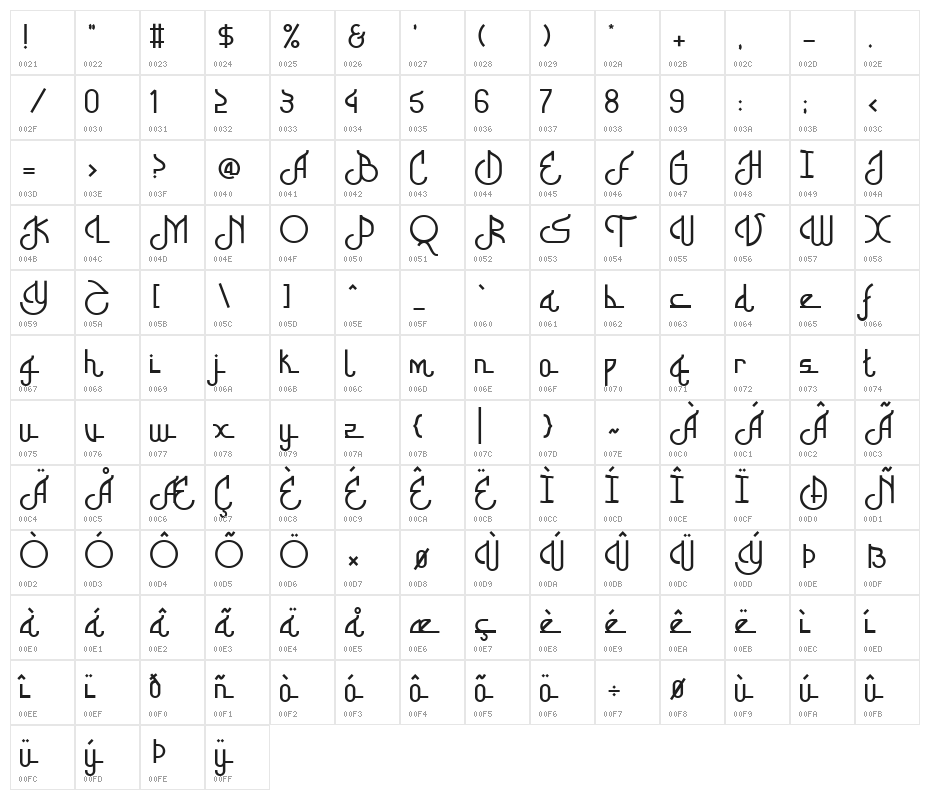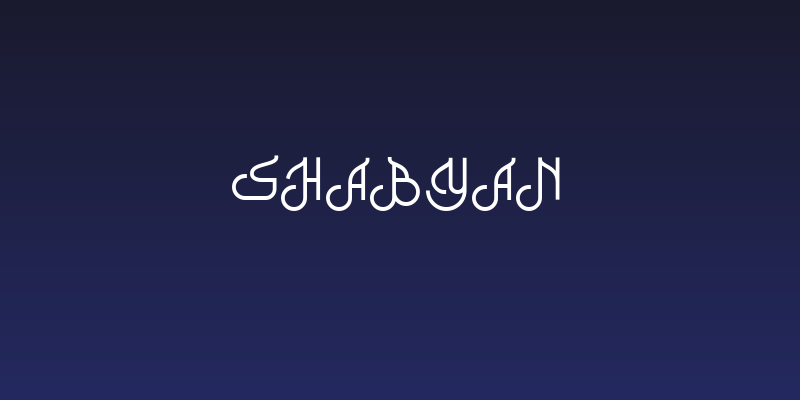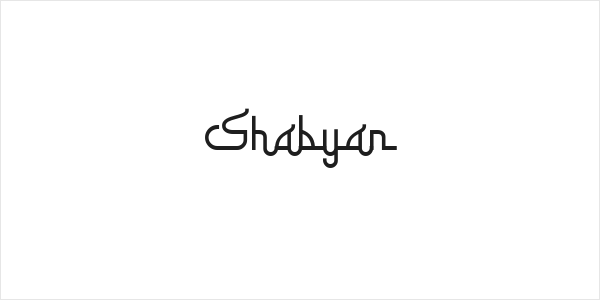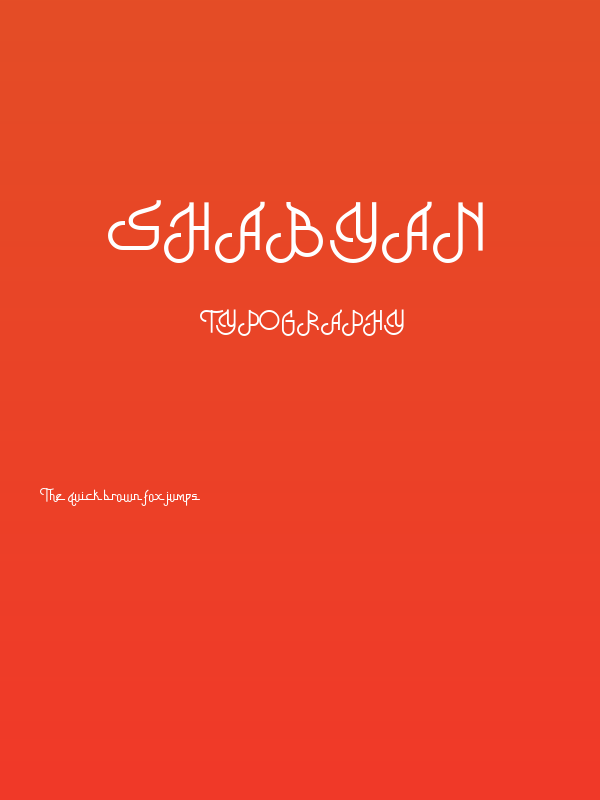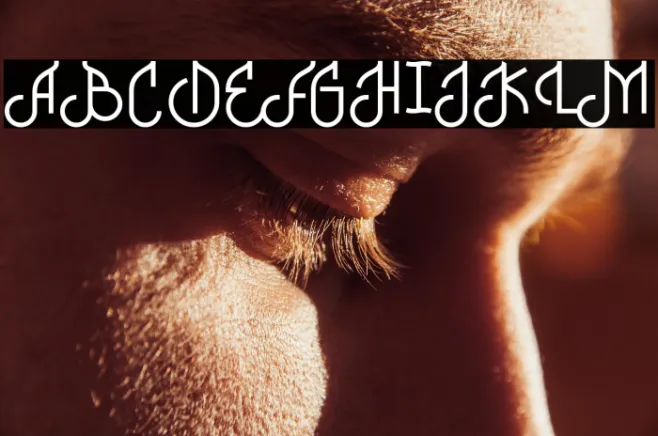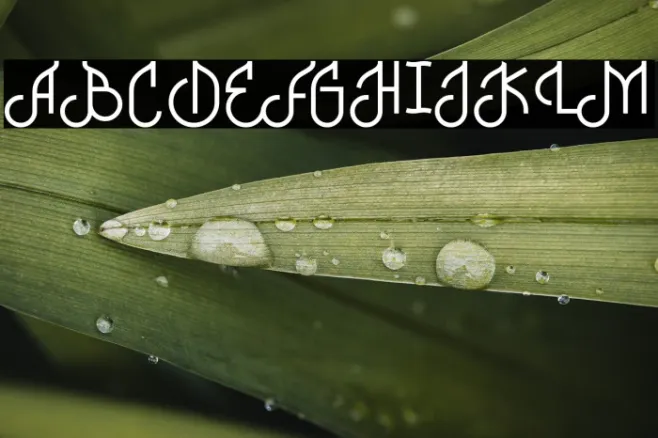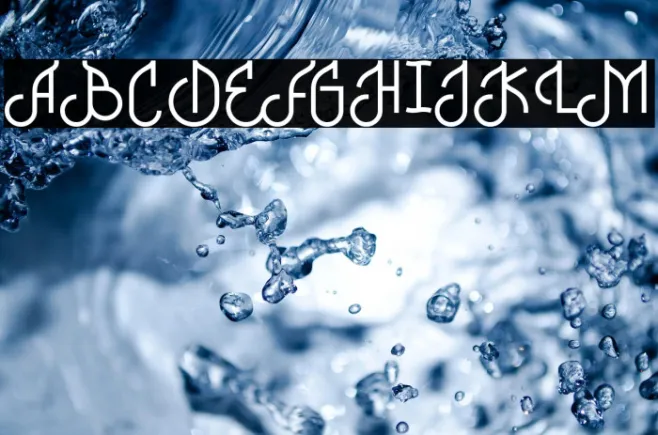
Shabyan Font
Shabyan Description
This font exhibits a unique and artistic style, characterized by its flowing, interconnected strokes that create a sense of movement and continuity. The uppercase letters feature a blend of curves and straight lines, giving them a modern yet playful appearance. The lowercase letters maintain a consistent style, with some characters extending below the baseline, adding to the dynamic feel. The numerals are distinct and easy to read, with a similar balance of curves and angles. Special characters are designed to complement the overall aesthetic, making this font versatile for various design needs.
| Proposed Projects | Ideal for creative branding, artistic posters, and modern web design. |